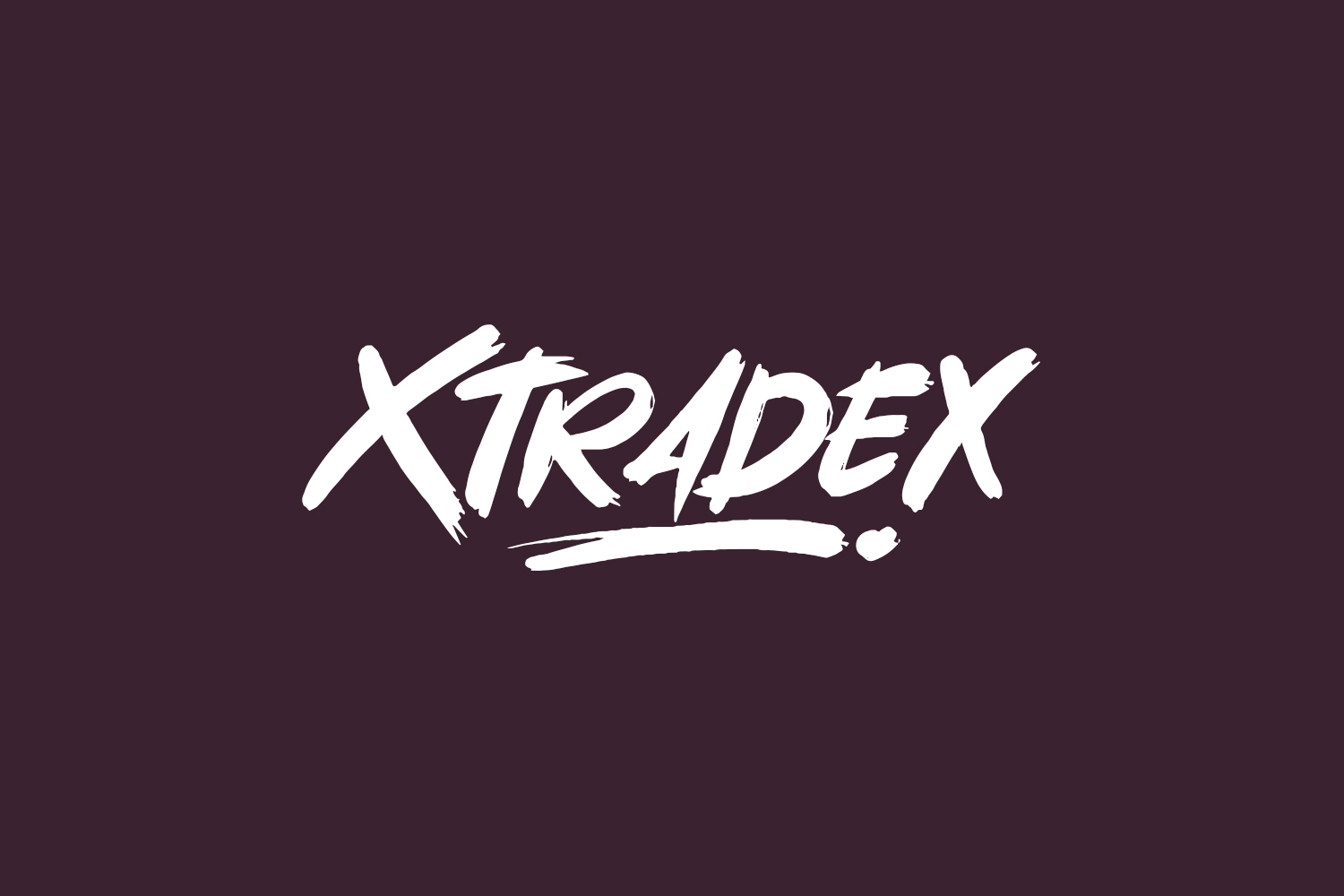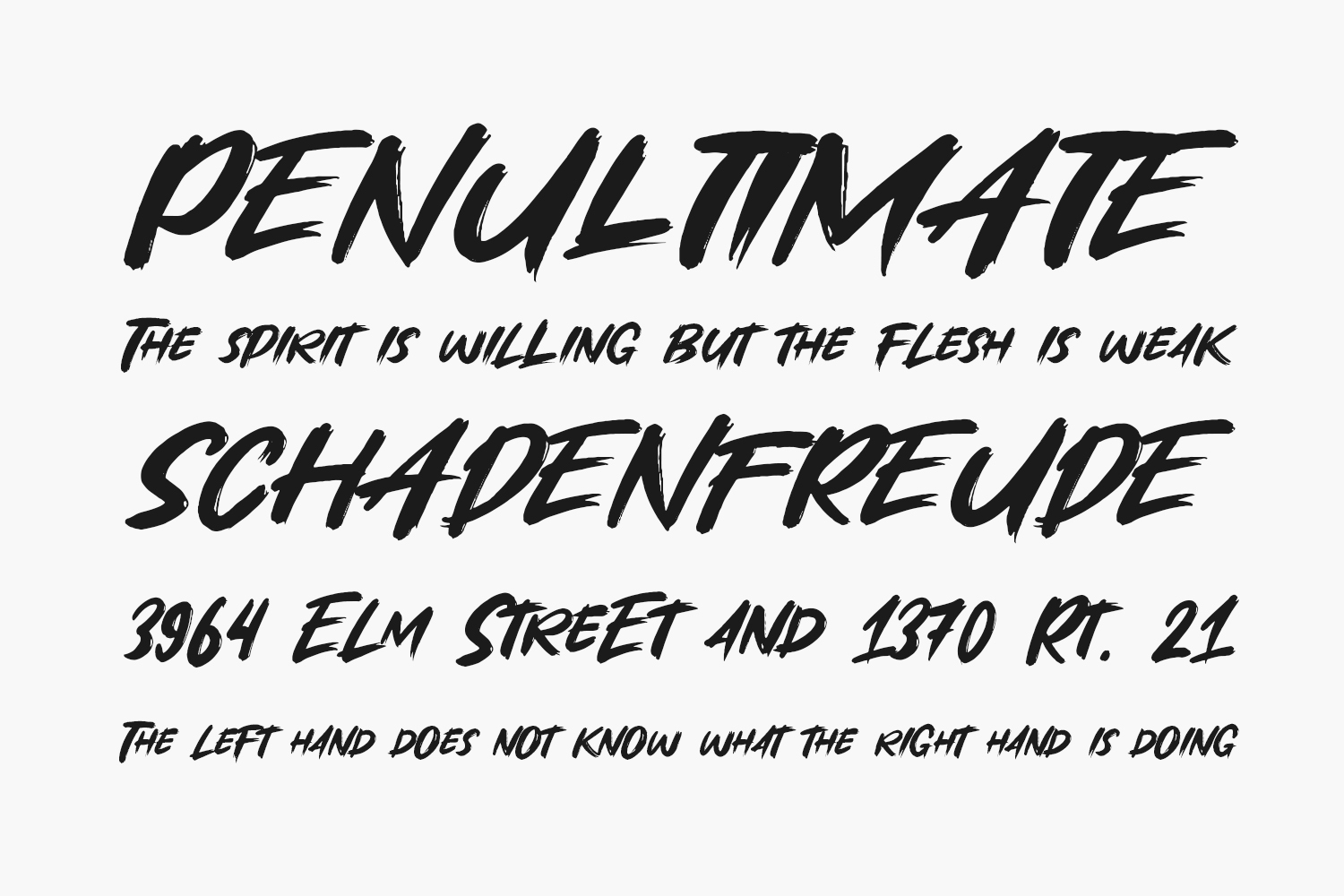
Xtradex Free Font is an exceptional contemporary brush font that adds a bold touch to various design applications. This versatile typeface is an ideal choice for posters, logos, magazines, book covers, banners, and more. Unleash your creativity with this unique display font and witness the magic it brings to your designs. With its wide range of compatibility, Xtradex effortlessly complements a vast array of projects, making them truly remarkable. Incorporate this font into your creative ideas and experience how it elevates them to new heights. Xtradex Free Font is free for personal use only. Please purchase the full version for commercial use.